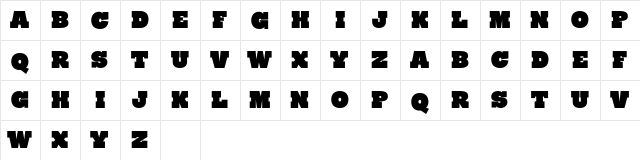
Ryno Slab Demo Regular
| Foundry | Philatype |
| Designer | Kosal Sen |
Design Context for Ryno Slab Demo Typeface
Ryno Slab Demo combines the readability of serif typography with the visual weight of a slab construction, resulting in a typeface that feels both authoritative and approachable.
Works well in editorial design, news publishing, impactful branding, and poster typography.
Pro Tip: Try Ryno Slab Demo set tight in headlines for a classic editorial feel. Its slab serifs create strong horizontal rhythm that anchors a page layout.